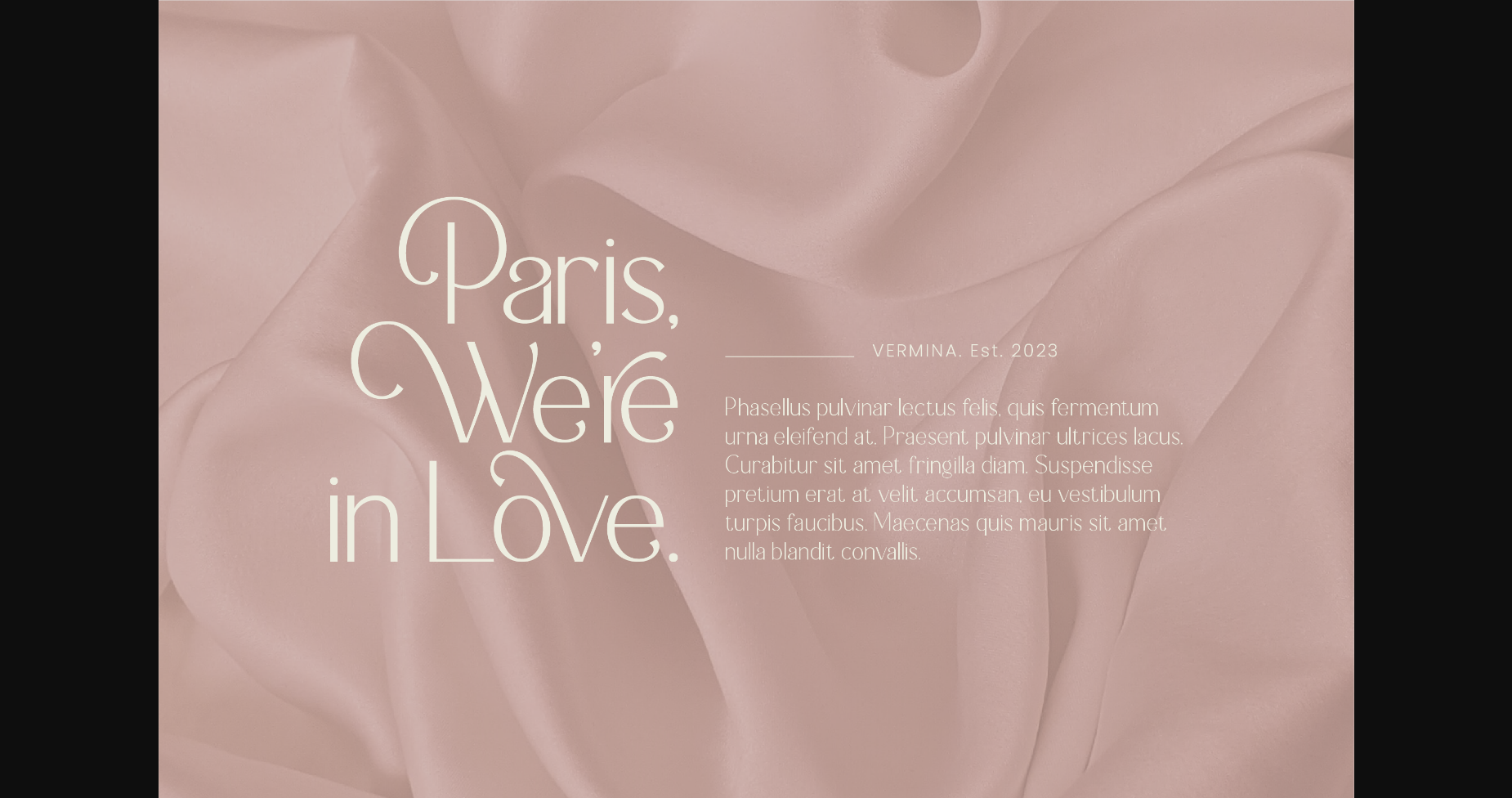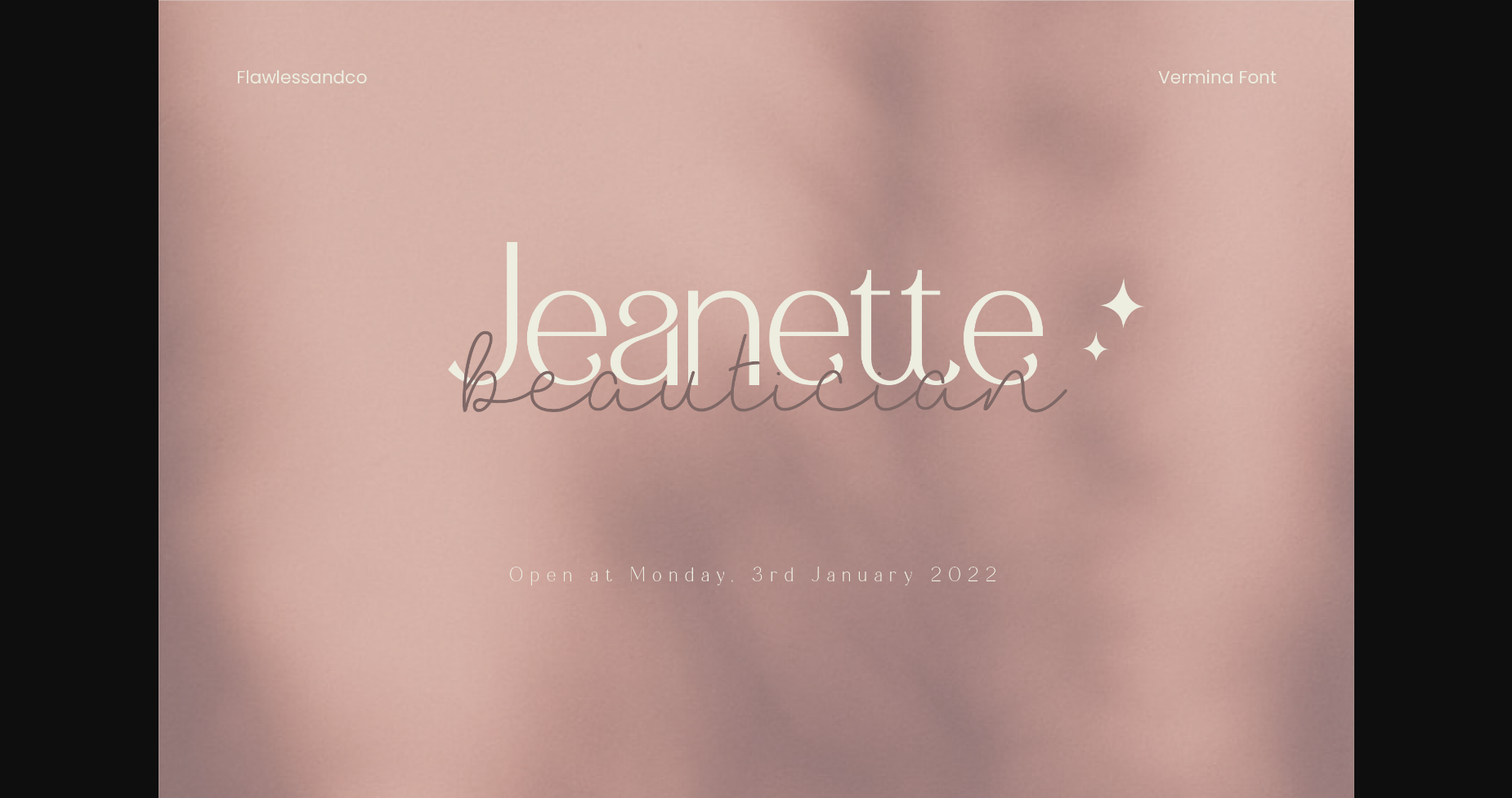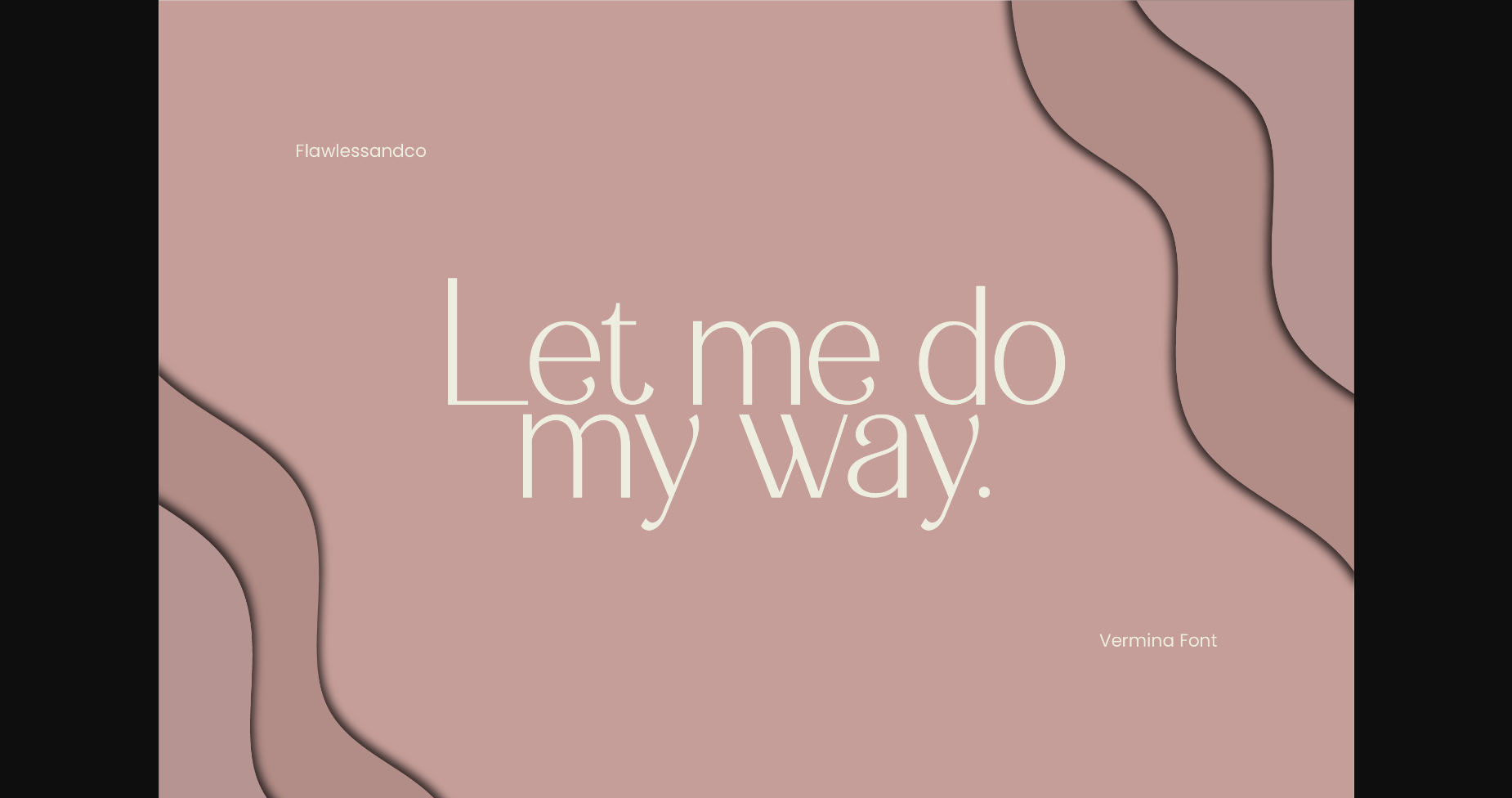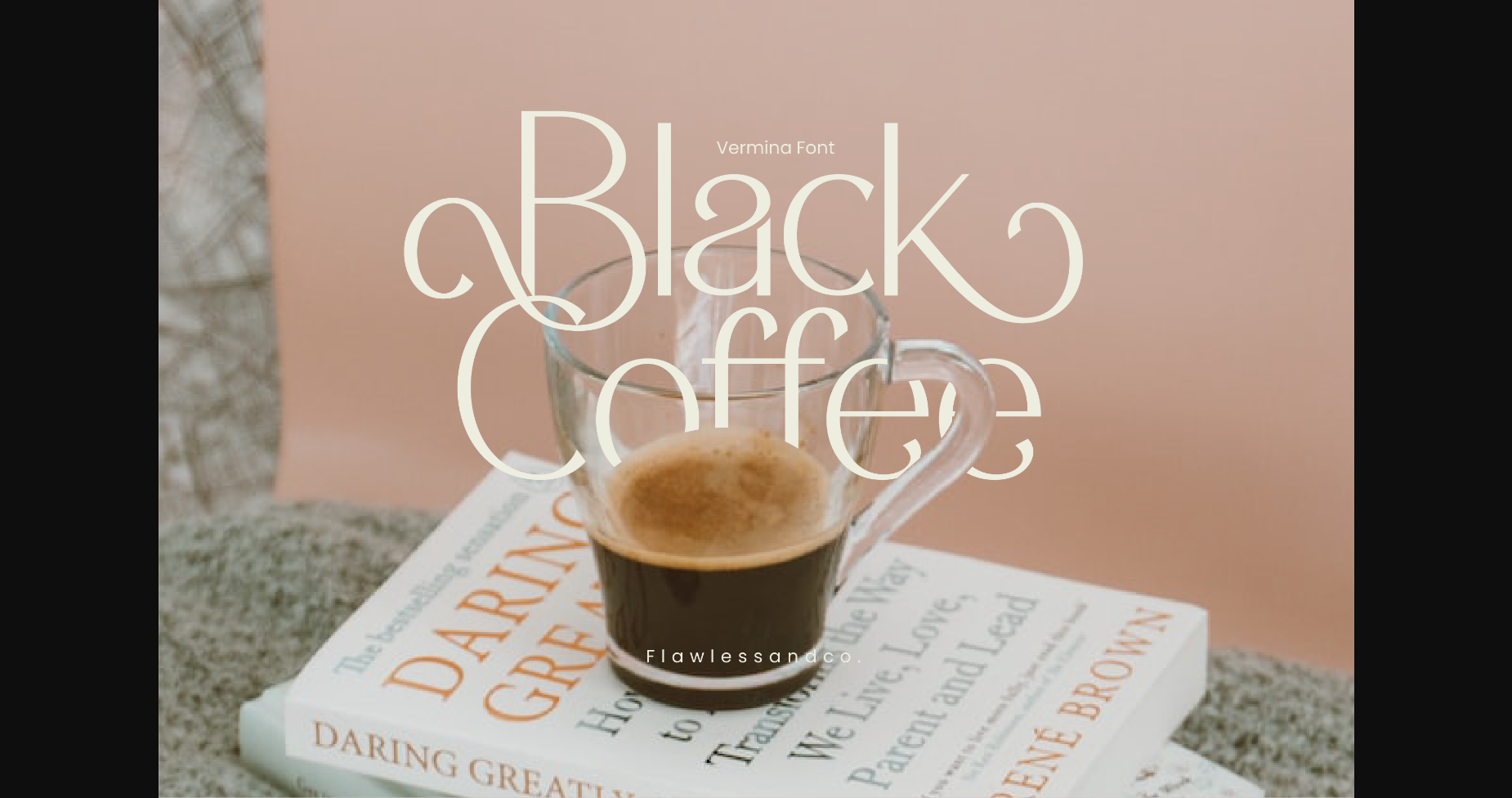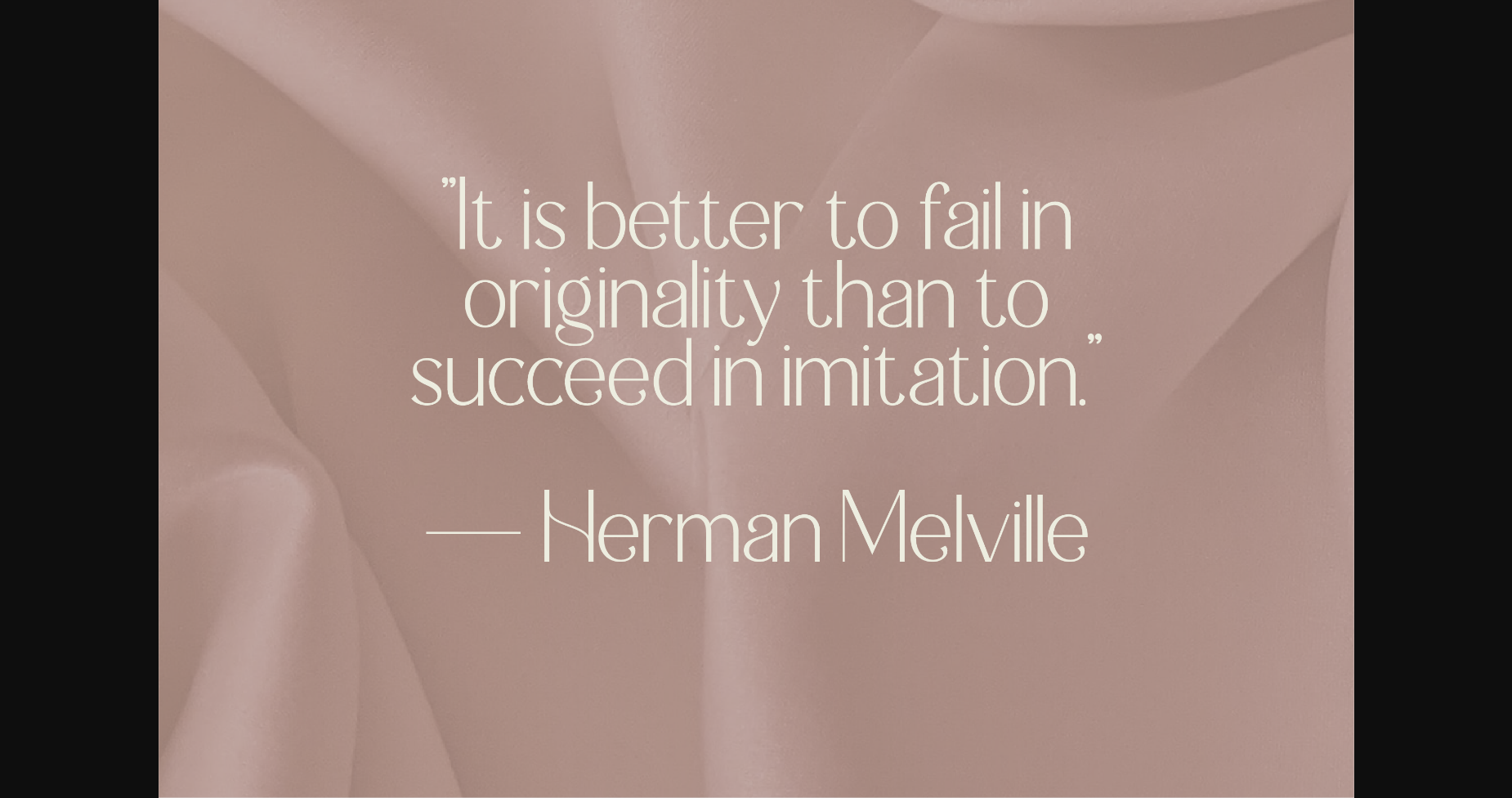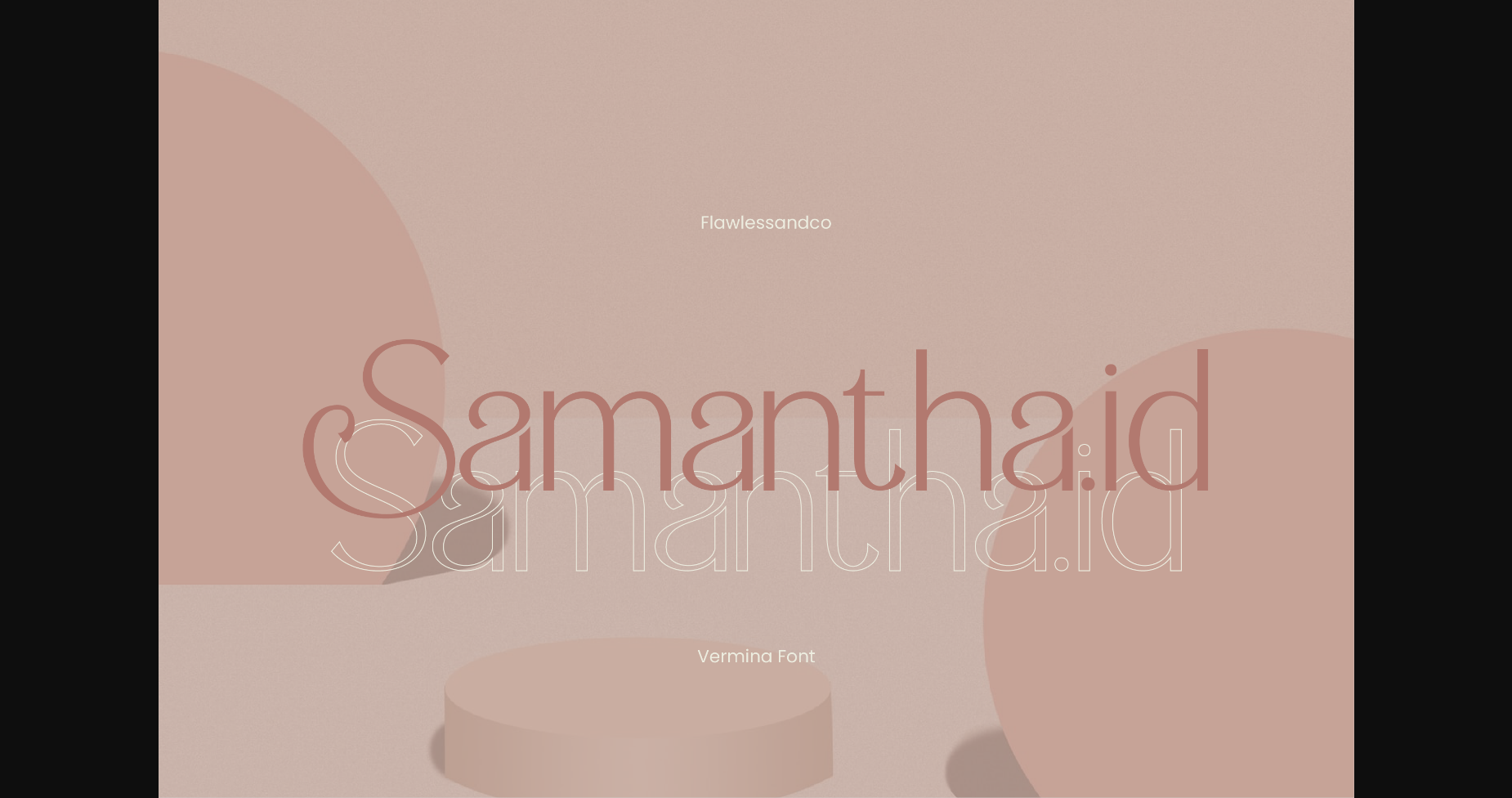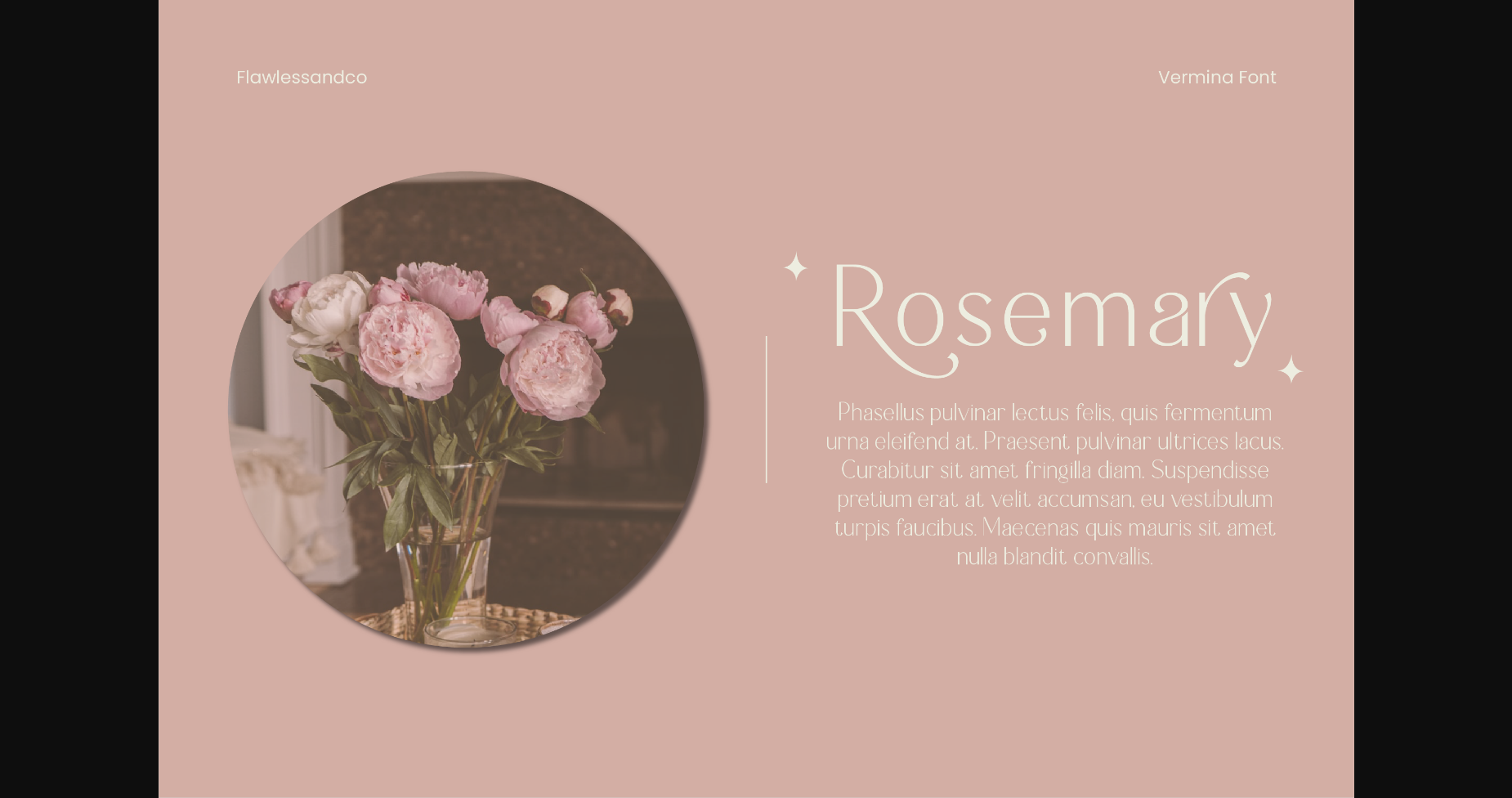
Vermina Font
About Vermina Font
Vermina is a beautifully crafted Sans-Serif that is perfect for any design project. This elegant and versatile font features ligatures and alternates, making it an ideal choice for creating eye-catching headlines, logos, branding, posters, and more.